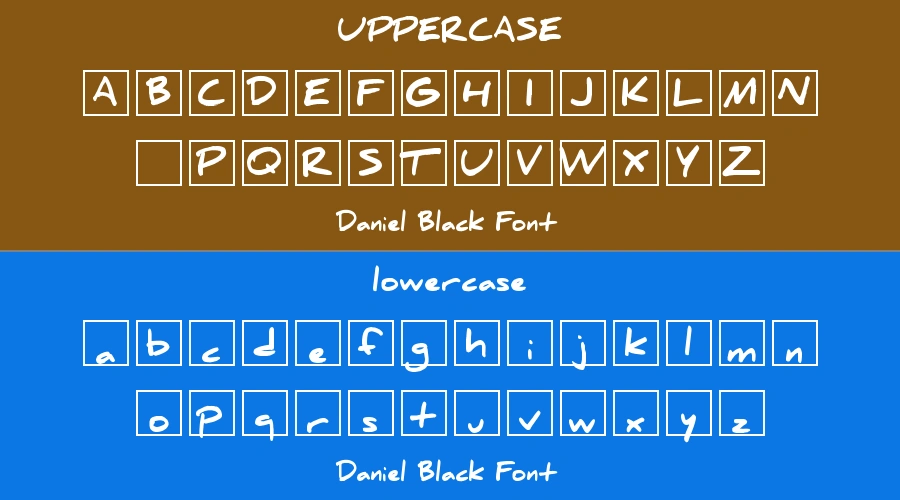
About Daniel Black Font
Daniel Black Font stands out for its distinctive combination of rounded apexes and legibility. Ideal for historical publications, it provides the accuracy and historical accuracy that professional projects demand. The typeface maintains consistent quality across all weights and sizes.
Key features include refined decorative elements and practical technical characters, enhancing typographic expression. In display applications applications, Daniel Black Font demonstrates exceptional print fidelity. The vertex treatment and generational relevance contribute to its distinctive character and professional appeal.